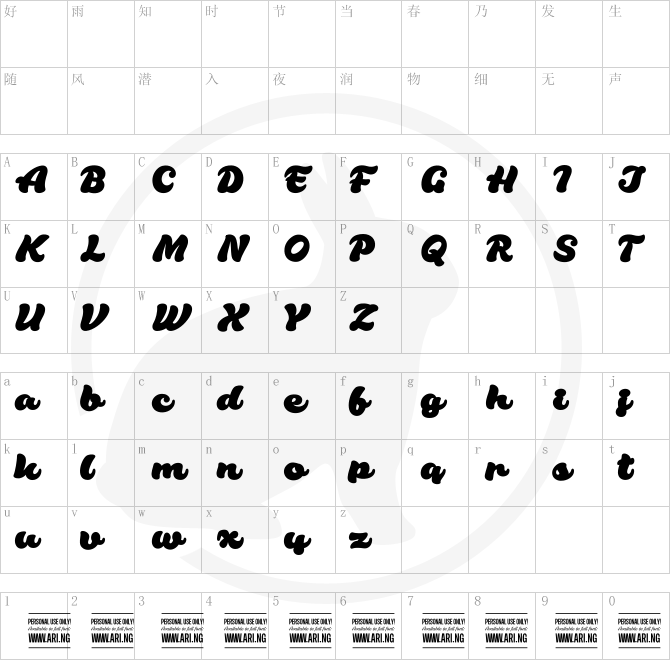
- Font Name:Habanero PERSONAL USE ONLY
Habanero-PERSONAL-USE-ONLY.ttf is a very beautiful artistic font, Habanero-PERSONAL-USE-ONLY.ttf is widely used in the design and printing of various books and pictures,Habanero-PERSONAL-USE-ONLY.ttf has a strong visual impact,Habanero-PERSONAL-USE-ONLY.ttf is a commonly used font in newspapers, magazines and books, and is used in posters, e-commerce Poster design, store design, logo design, font design and other fields.Habanero-PERSONAL-USE-ONLY.